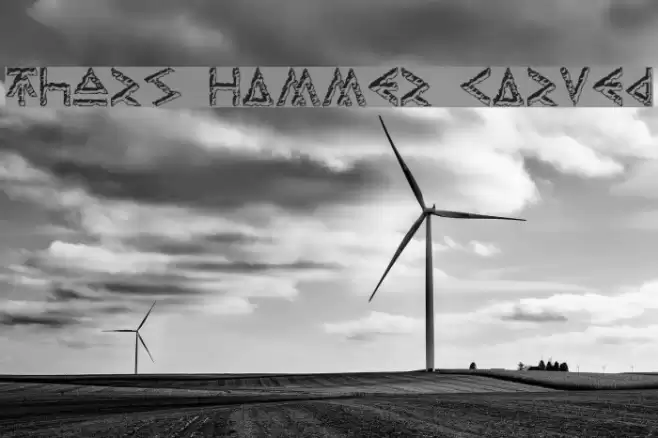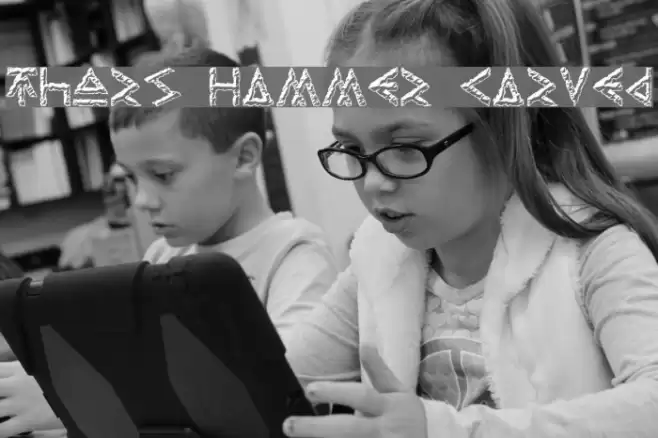
Thors Hammer Carved Font
Thors Hammer Carved Description
This font features a rugged, carved appearance reminiscent of ancient runes or stone engravings. Each character is designed with jagged edges and an uneven texture, giving it a distinctly primitive and powerful look. The uppercase and lowercase letters maintain a consistent style, with angular forms and a bold presence. Numbers and special characters are similarly styled, ensuring a cohesive visual theme throughout. The font's unique design evokes a sense of mystery and ancient history, making it ideal for projects that require a strong, impactful aesthetic.
A rugged, carved font with a primitive, ancient rune-like appearance from Uncategorized fonts.
- Proposed Projects: Ideal for fantasy-themed designs, historical projects, video game titles, or any creative work requiring a bold, ancient aesthetic.